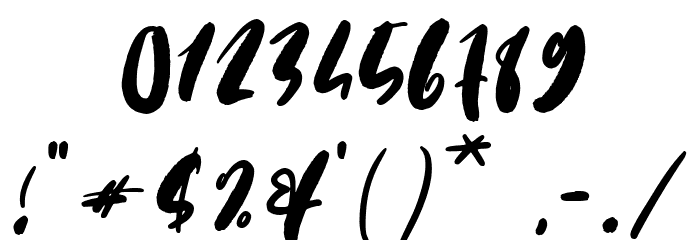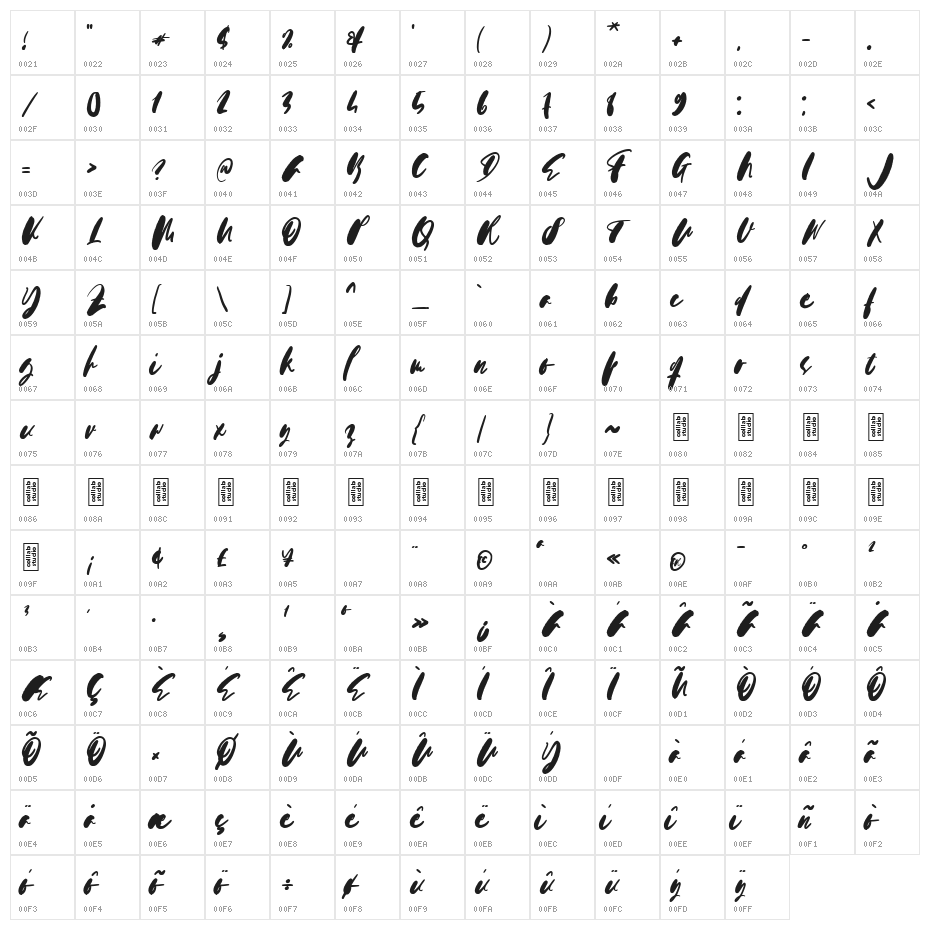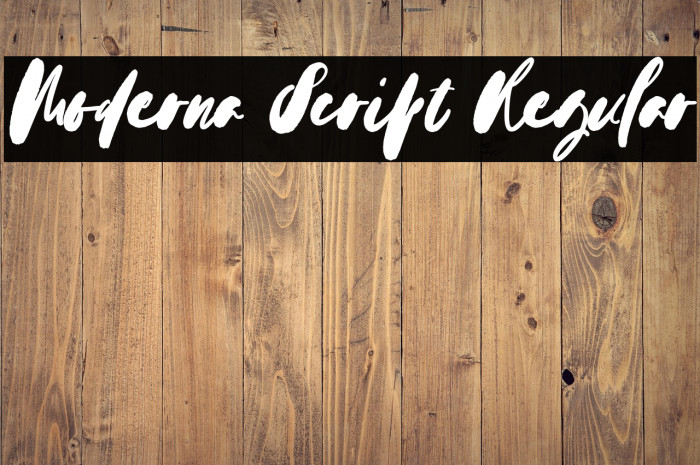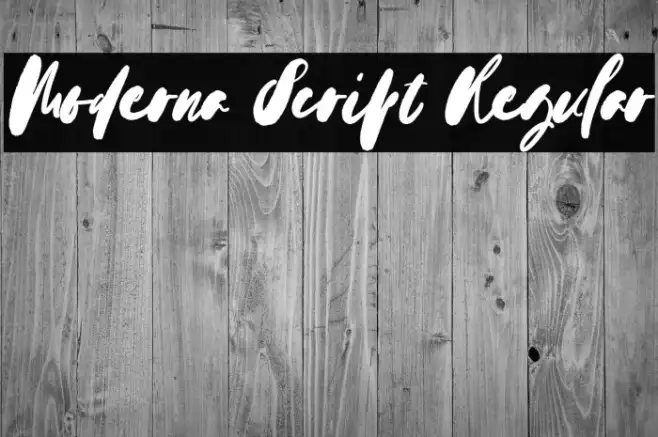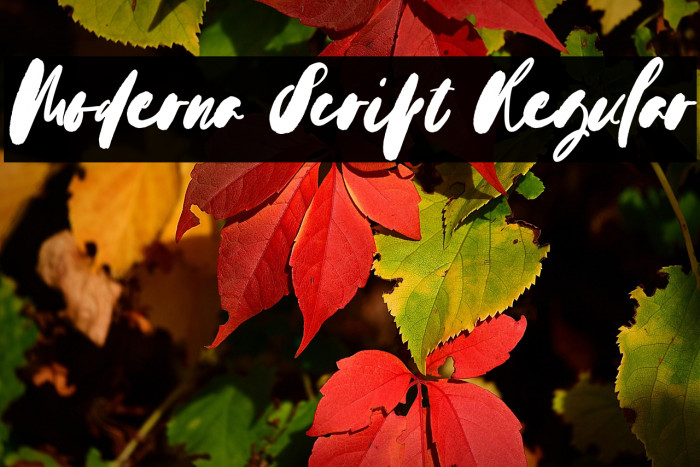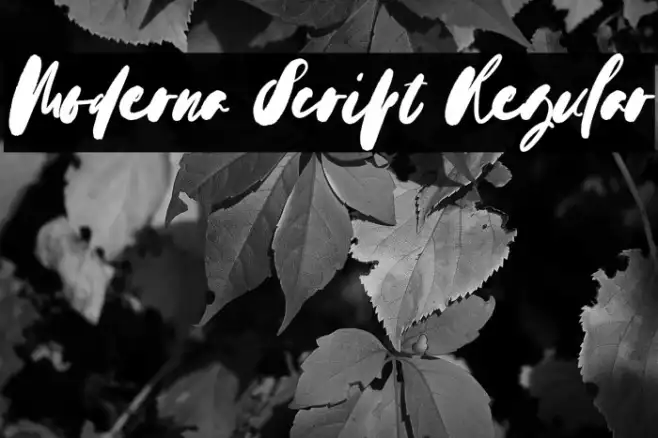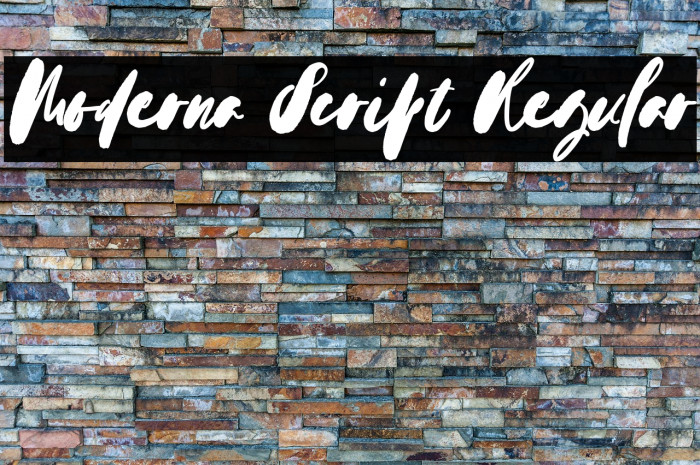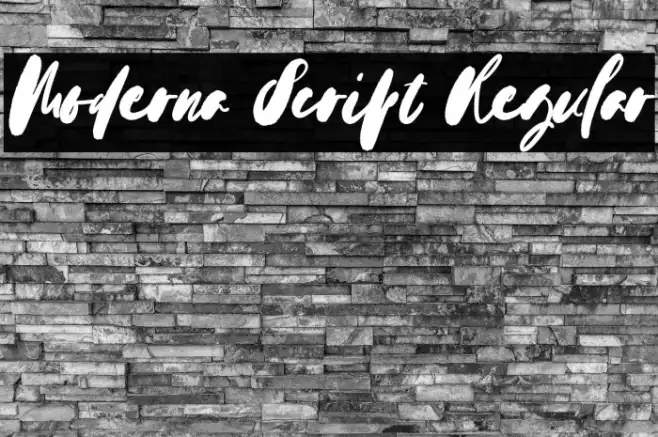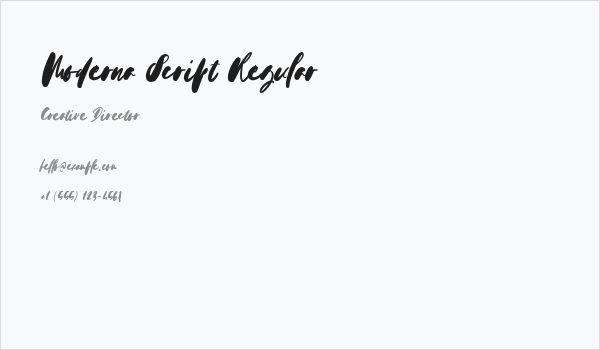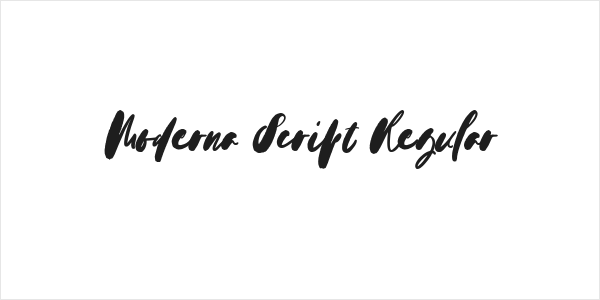
Moderna Script Regular Font
Moderna Script Regular Description
This font exudes a dynamic and expressive style, characterized by its bold, flowing script that mimics the fluidity of handwriting. The letters are interconnected with smooth, sweeping curves, giving it a lively and energetic appearance. The uppercase letters are particularly striking, with exaggerated loops and flourishes that add a sense of movement and flair. The lowercase letters maintain a consistent rhythm, enhancing readability while preserving the font's artistic essence. Numbers and special characters are crafted with the same attention to detail, ensuring a cohesive look across all elements. This font is perfect for projects that require a personal touch, such as invitations, greeting cards, or branding materials that aim to convey creativity and elegance.